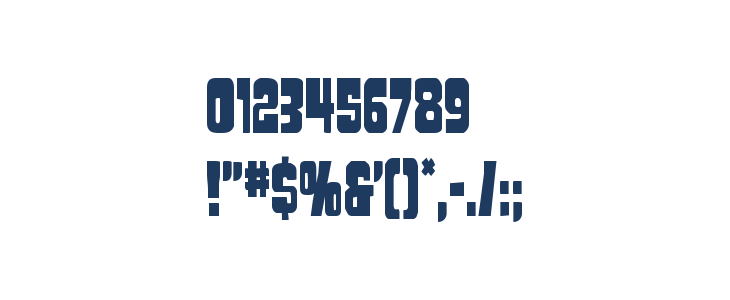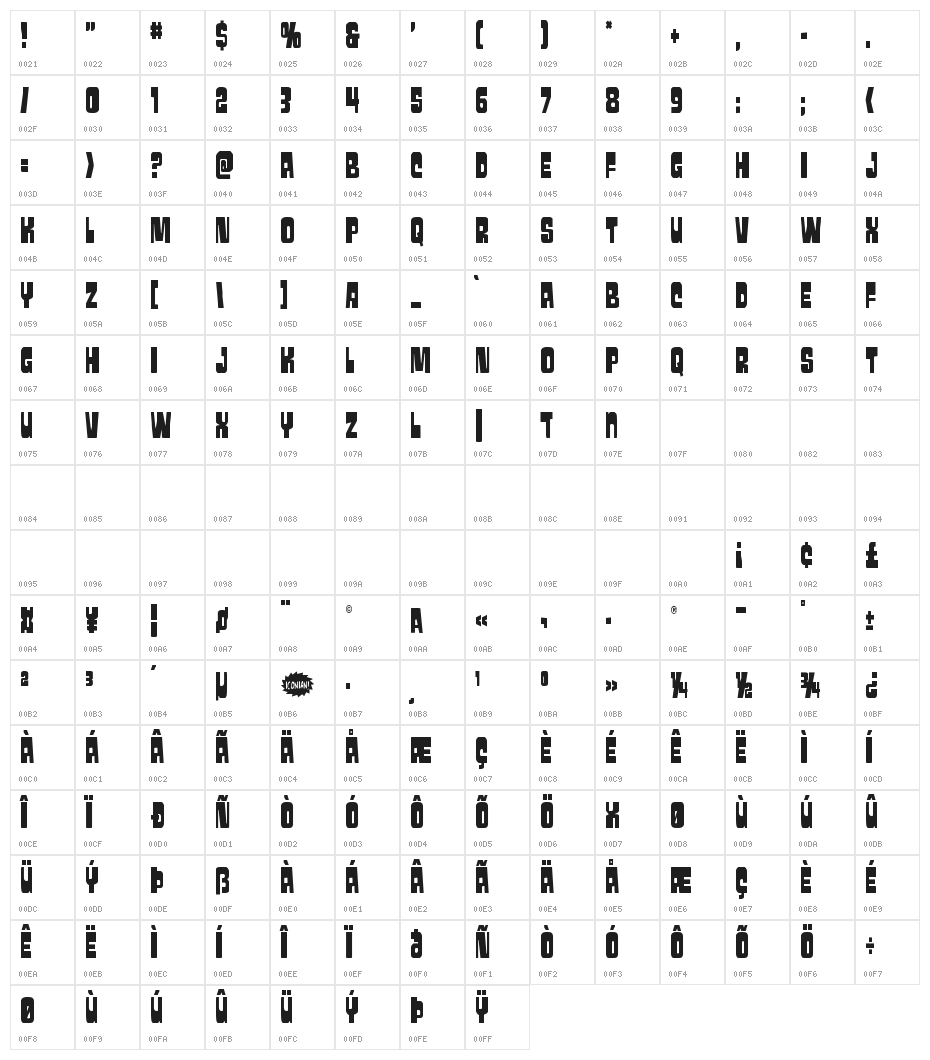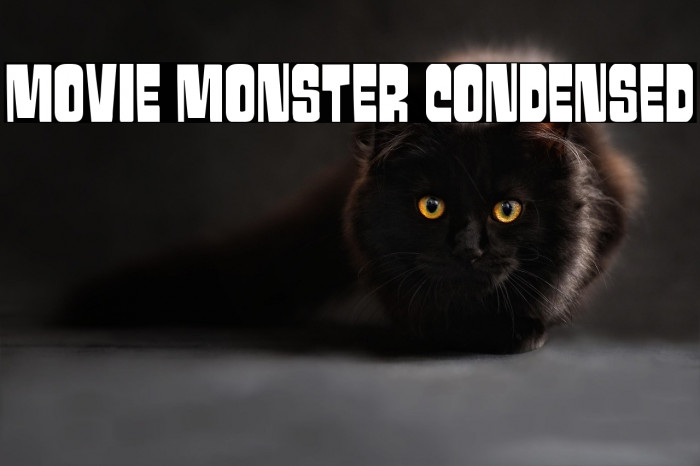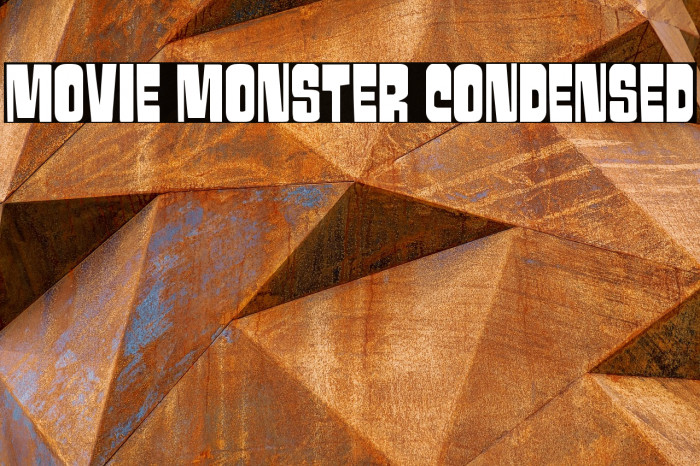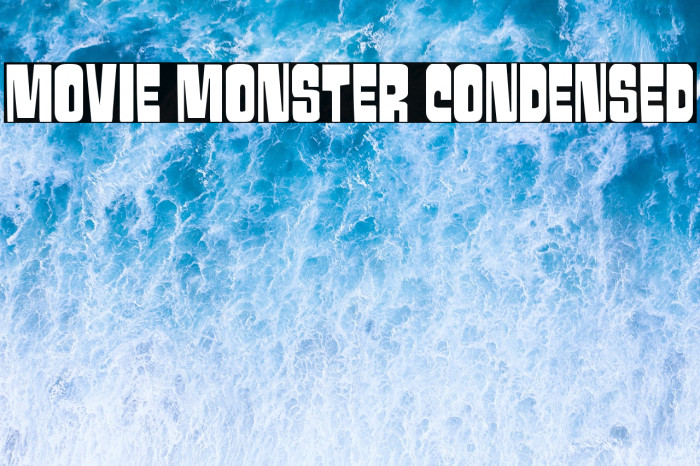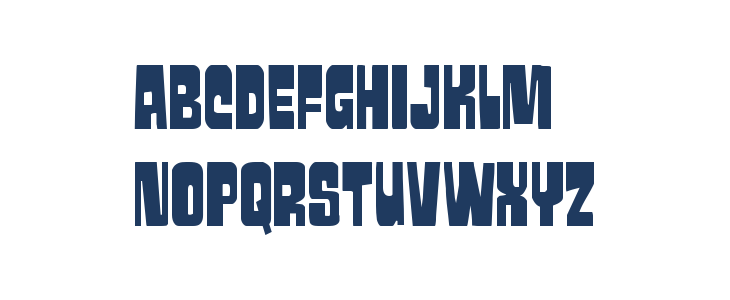
Movie Monster Condensed Font
Movie Monster Condensed Description
This font features a bold and impactful design with a condensed structure, making it ideal for creating a strong visual presence. The uppercase letters are particularly striking, with thick strokes and minimal spacing, which enhances their boldness. The numbers and special characters maintain the same robust style, ensuring consistency across all elements. The font's condensed nature allows for efficient use of space, making it suitable for headlines and titles where space is limited but impact is essential. Its bold and blocky appearance gives it a modern and slightly aggressive feel, perfect for projects that require a commanding and attention-grabbing typeface.
| Proposed Projects | Ideal for movie posters, video game covers, branding for extreme sports, or any project needing a bold statement. |